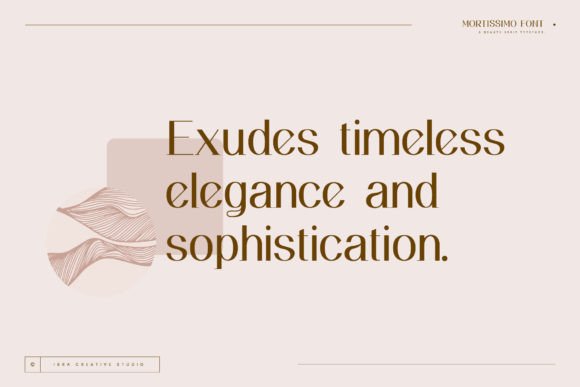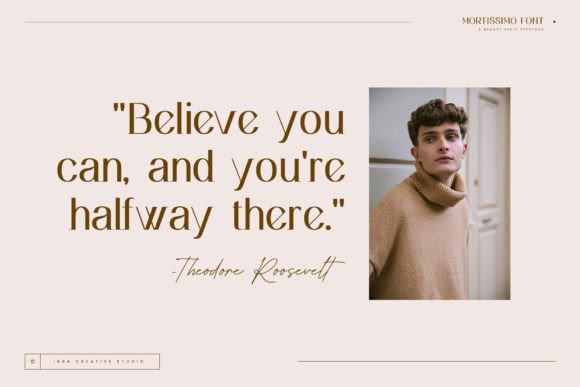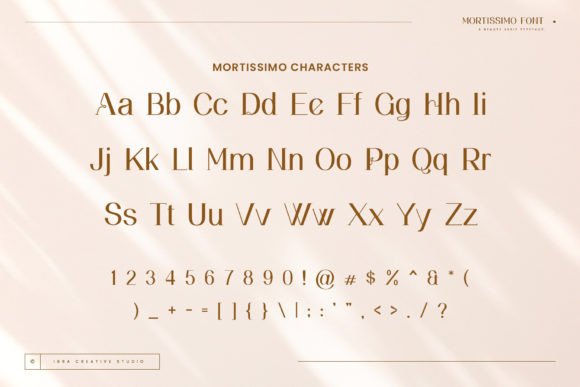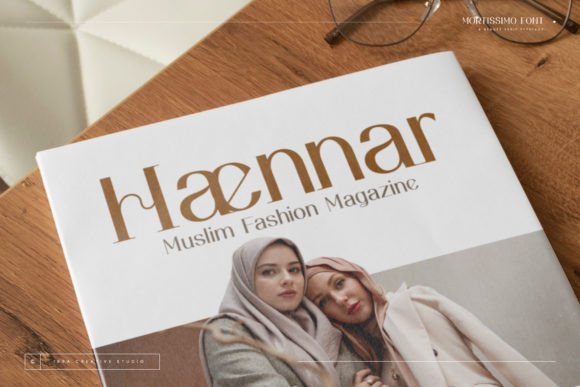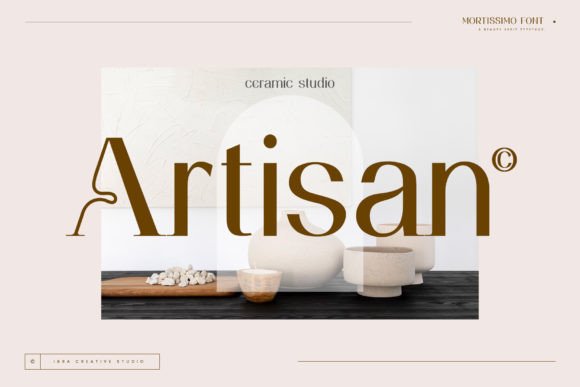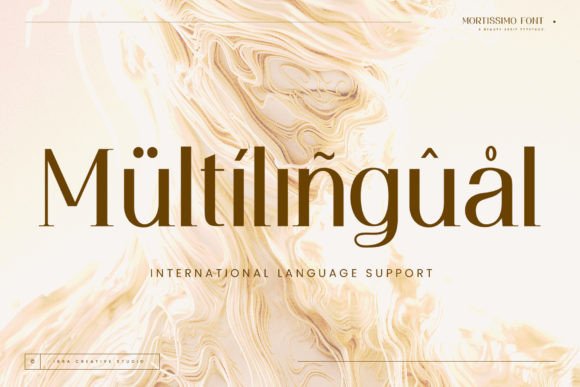
Introduction to Mortissimo Font
Have you ever found yourself in the midst of a creative project, searching for the perfect font to bring your vision to life? The moment when the right design resource makes all the difference is one that every designer knows well. For me, that moment came when I stumbled upon the Mortissimo Font, a stunning beauty serif typeface that has since become a go-to choice for projects that demand elegance and sophistication.
With its gracefully elongated serifs and finely crafted letterforms, Mortissimo Font strikes a harmonious balance between classic aesthetics and contemporary design. Its delicate strokes and subtle curves convey a sense of refinement, making it an ideal choice for designers who want to add a touch of charm to their creative projects. Whether you’re working on a design that requires a high-quality font or simply looking for a free download with a transparent background, Mortissimo Font is an excellent option to consider.
- Perfect for adding a touch of elegance and sophistication to any design, from logos and typography to creative compositions.
Honest Review: Mortissimo Font
As a designer, I’m always on the lookout for high-quality design resources to elevate my creative projects. The Mortissimo Font caught my attention, and I’m excited to share my honest review.
- ✨ Unique and stylish design that adds a touch of sophistication to any project.
- ✨ High-quality typography that’s perfect for both digital and print media.
- ⚠️ Limited character set, which may not be suitable for longer text-based projects.
- ⚠️ Some users may find the font’s transparent background challenging to work with, especially when combining with other design elements.
Overall, I’m impressed with the Mortissimo Font’s unique design and high-quality typography. While it may have some limitations, it’s a great addition to any designer’s toolkit. If you’re looking for a stylish and elegant font for your creative project, the Mortissimo Font is definitely worth considering.
Tips for Getting the Most Out of Mortissimo Font
To maximize the use of Mortissimo Font, use it in combination with transparent backgrounds for a clean and modern look. You can also experiment with different font sizes and styles to add visual interest to your designs.
The Mortissimo Font is suitable for a variety of projects, including logos, brochures, and social media graphics. Its high-quality design makes it an ideal choice for creative professionals and hobbyists alike.